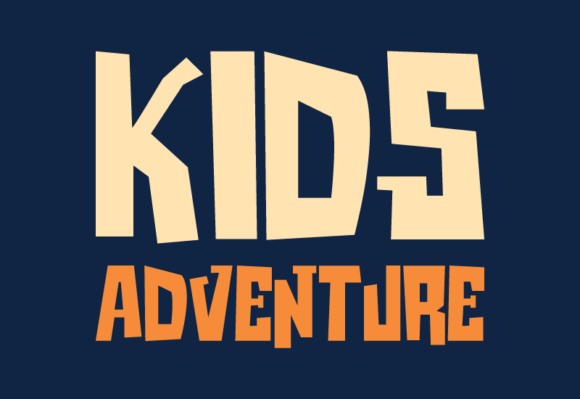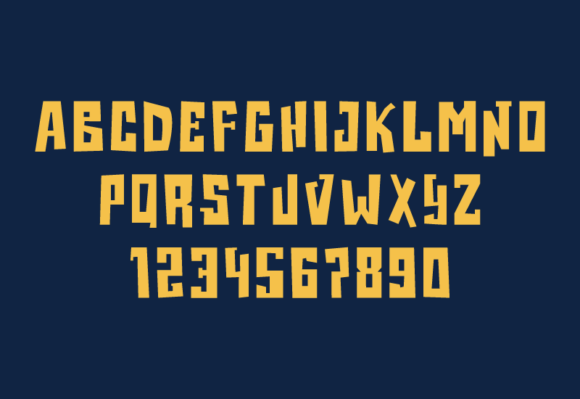
Unleash the Joy of Childhood in Your Designs
Have you ever sat down with a child and watched as they effortlessly bring their imagination to life with scribbles, doodles, and colorful letters? That carefree spirit is exactly what the Kids Adventure Font embodies. This charming typeface is designed to capture the whimsy and joy of childhood, making it the perfect tool for any project that needs a dash of fun and playfulness.
As a designer, you understand the importance of creating engaging and memorable experiences for your audience. With the Kids Adventure Font, you can effortlessly infuse your designs with a sense of wonder and delight, making it an invaluable asset for any child-focused endeavor. Whether you’re creating educational materials, marketing campaigns, or simply want to add a touch of personality to your designs, this font is sure to bring a smile to your face and your audience’s.
Kids Adventure Font Key Features
- Font Family: A unique, playful font designed specifically for kids’ content, including books, educational materials, and children’s websites.
- Unique Characteristics: Includes a range of special characters, such as smiling faces, stars, and other fun icons, to add a playful touch to kids’ content.
Designer Review: Kids Adventure Font
Overall, I think the Kids Adventure Font is a fun and playful addition to any design project. It’s perfect for creating a sense of excitement and adventure in your work.
Here are some things that really stand out to me:
- ✨ The bold, expressive lines and curves of the font give it a sense of energy and movement.
- ✨ The varied letterforms and punctuation marks add a lot of visual interest and help to keep the text feeling dynamic.
- ✨ The font is highly customizable, which makes it a great choice for designers who want to add their own personal touch.
- ⚠️ The font may not be the best choice for formal or professional projects, as it can feel a bit too playful and immature.
- ⚠️ Some of the letterforms and punctuation marks can be a bit difficult to read at small sizes, which may be a problem for designers who need to use the font in small text.
Overall, I think the Kids Adventure Font is a great choice for designers who want to add a sense of fun and adventure to their work. Just be sure to use it in the right context and be aware of its limitations.
Tips for Getting the Most Out of Kids Adventure Font
For the best results, use Kids Adventure Font in conjunction with bold, colorful graphics and playful textures.
Consider using Kids Adventure Font for titles, headings, and other attention-grabbing text elements.
Kids Adventure Font is perfect for:
- Children’s book covers and illustrations
- Education and learning materials
Alternative Fonts to Kids Adventure Font
Great Vibes Font is a modern, playful font that is perfect for creating a fun and adventurous atmosphere. It is more versatile than Kids Adventure Font, making it suitable for various design projects, from branding to editorial content. While Kids Adventure Font is more focused on a children’s theme, Great Vibes Font can be used for a wider range of audiences.
Alex Brush Font is a elegant, handwritten font that adds a touch of sophistication to any design. It is a great alternative to Kids Adventure Font when you need to create a more refined and luxurious feel. While Kids Adventure Font is bold and playful, Alex Brush Font is softer and more subtle, making it ideal for designs that require a more delicate approach.